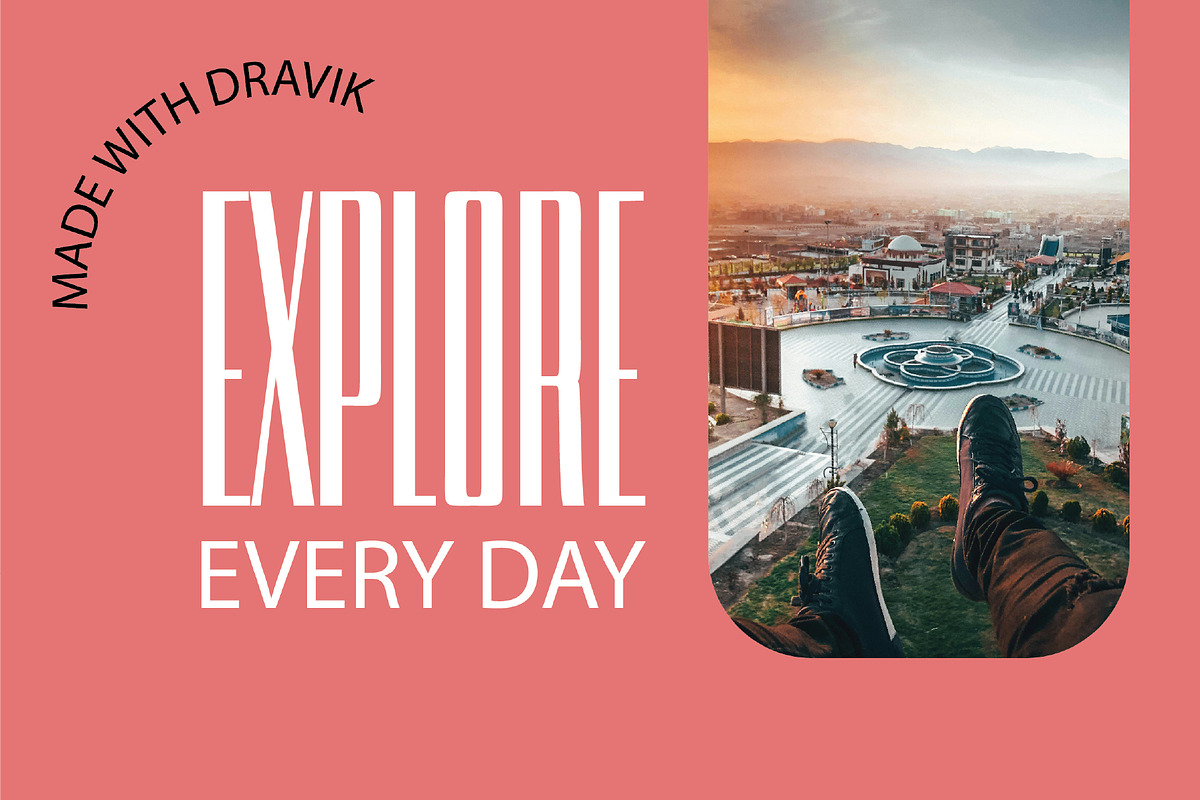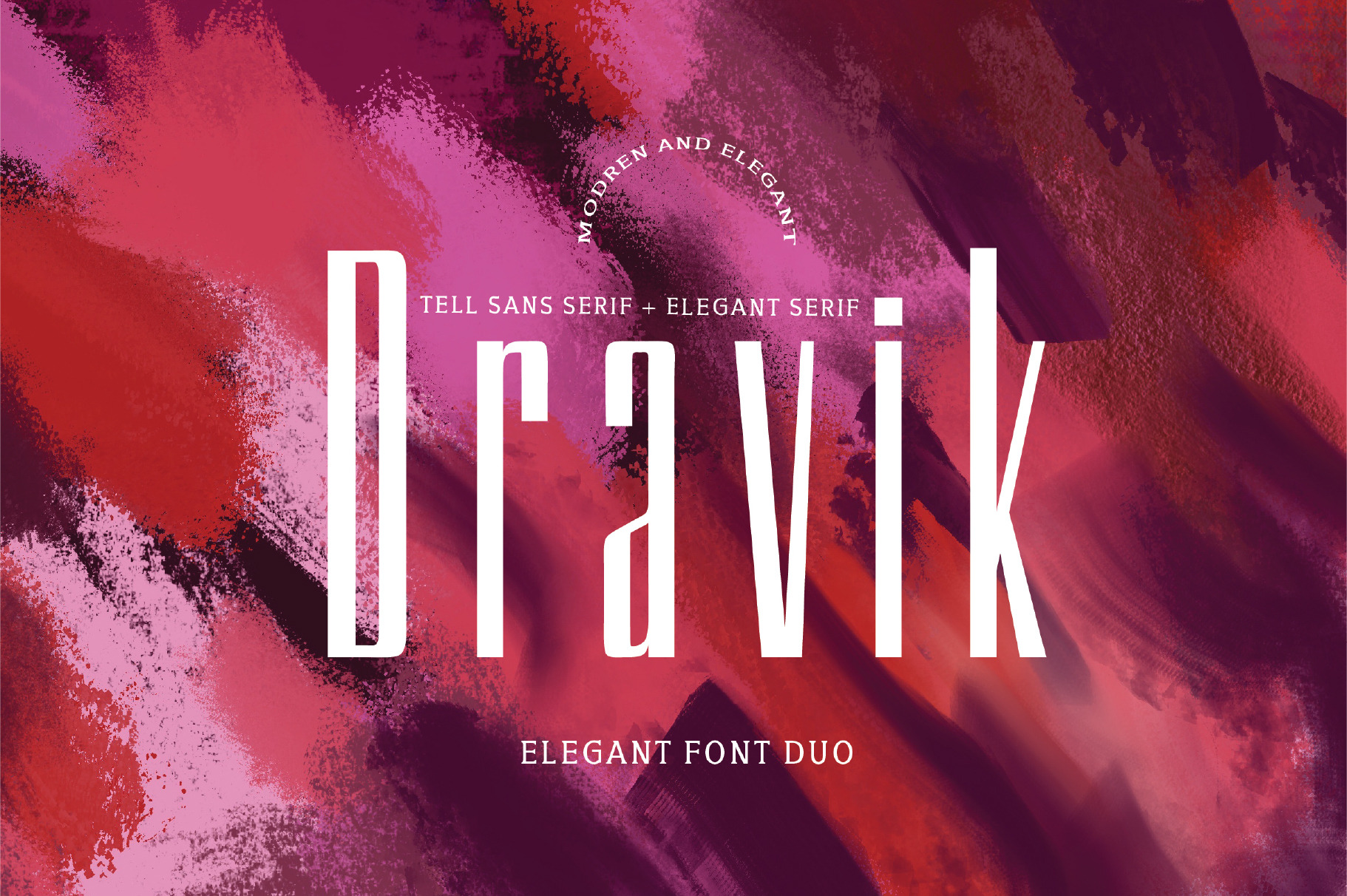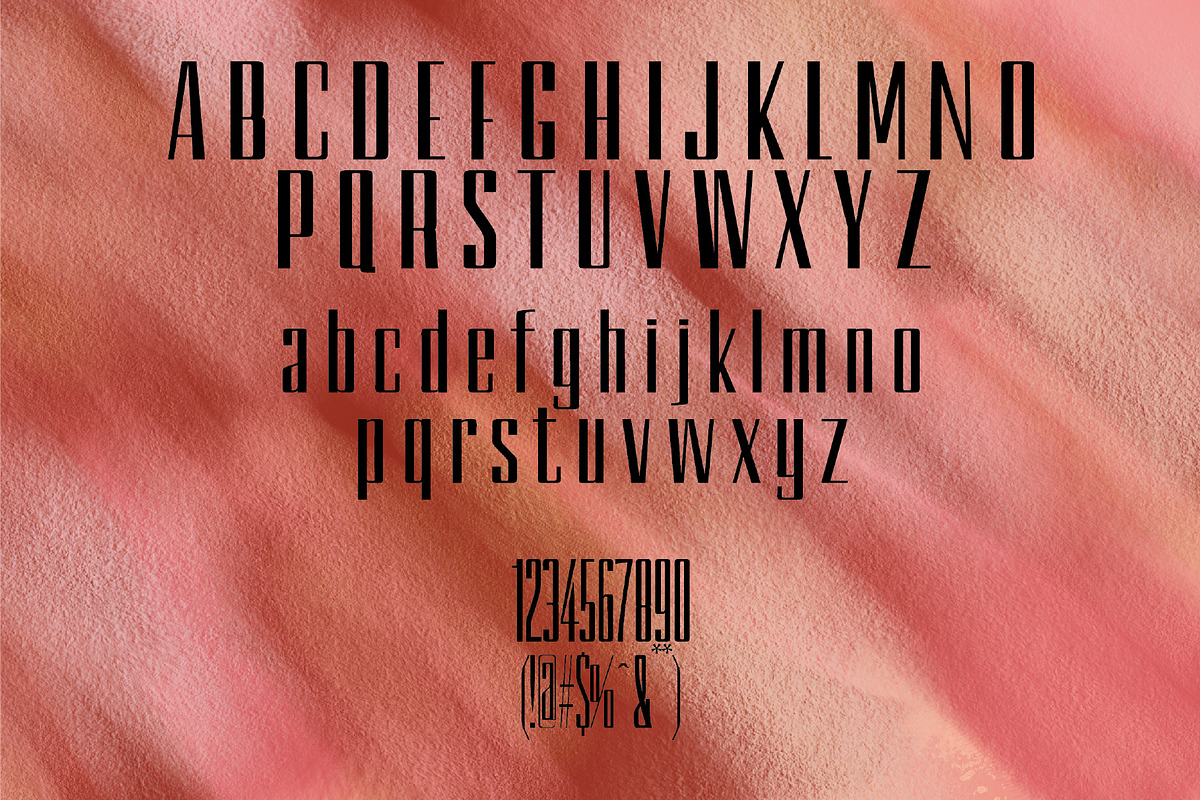
Dravik | Minimal Sans Serif Font
Dravik is a sleek and minimal light sans serif typeface designed for modern and clean visual communication. With its smooth lines, soft structure, and refined details, Dravik Light is ideal for branding, editorial design, packaging, social media graphics, and professional presentations.
Its light weight gives your designs a calm and elegant presence, making it a perfect choice for designers who value clarity, simplicity, and style. Dravik works beautifully in both digital and print formats, and pairs well with bold or script fonts for dynamic layouts.
Dravik Light is the go-to typeface for sophisticated minimal designs with a modern edge.